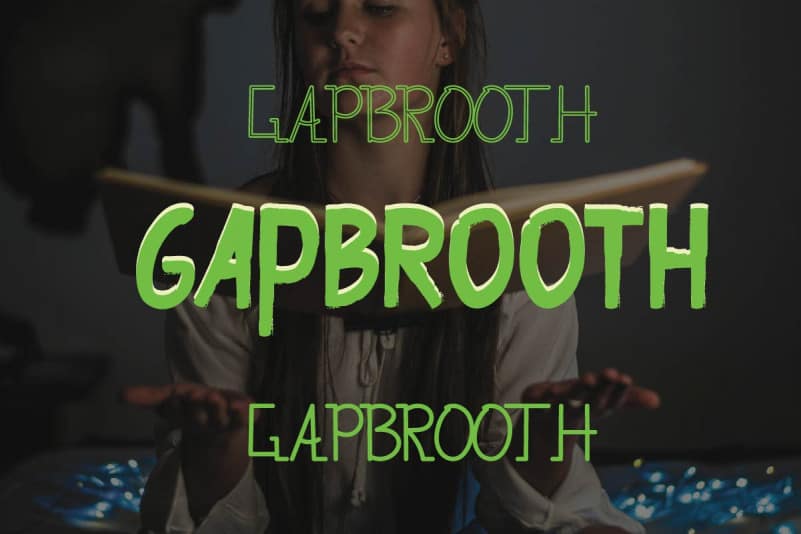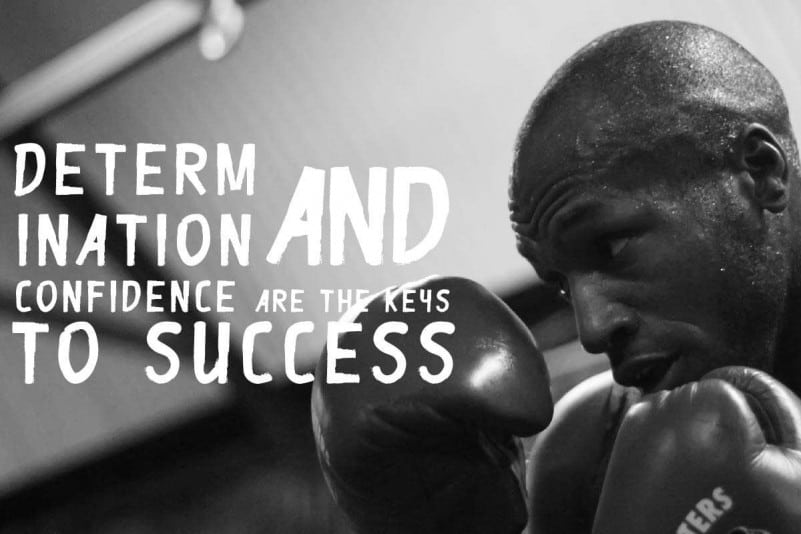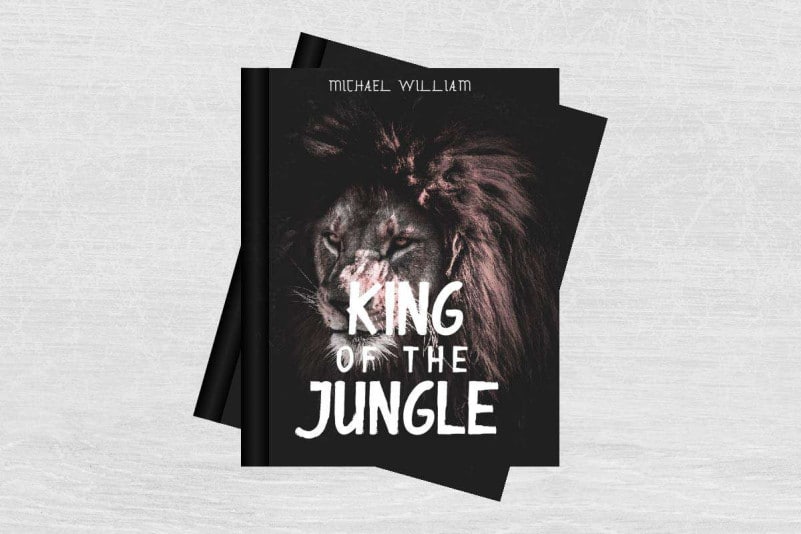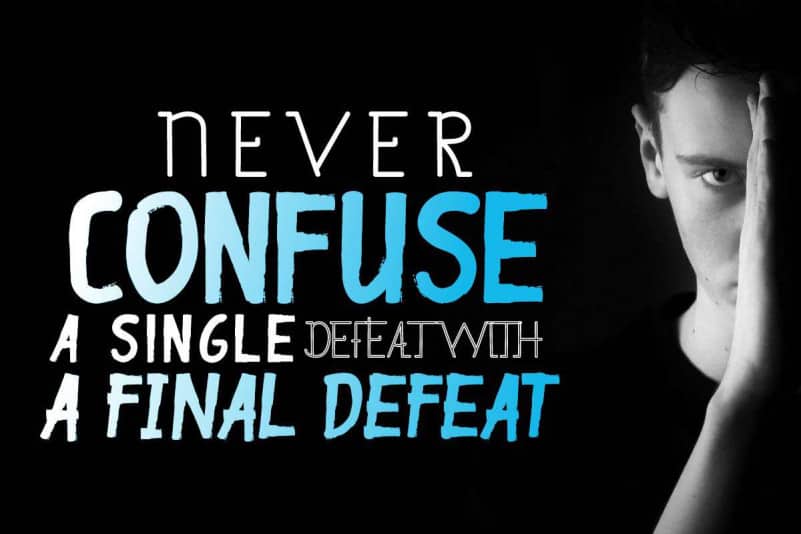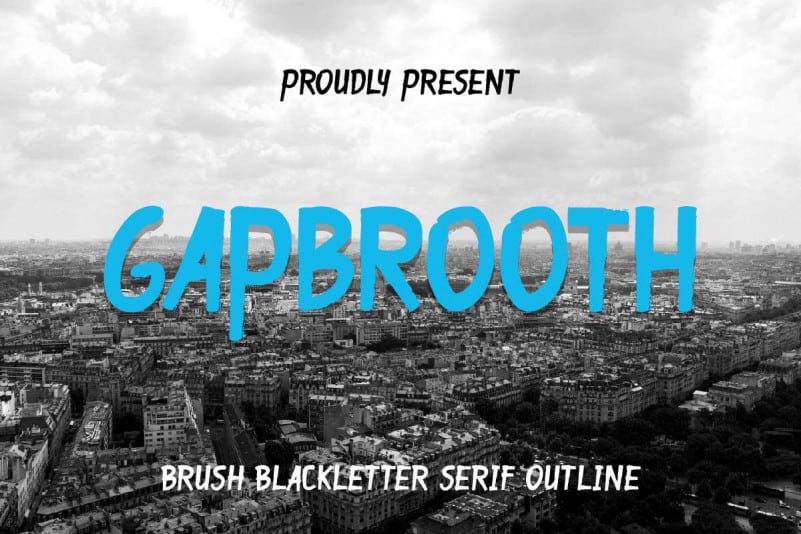
Gapbrooth Font Duo
Edric Studio in 2020 Present to you : Gapbrooth Font Duo This is a display script font family made in Bandung-Indonesia. It has three styles : Reguler and Italic. Made by Ali and Sarah in Garut – Indonesia.